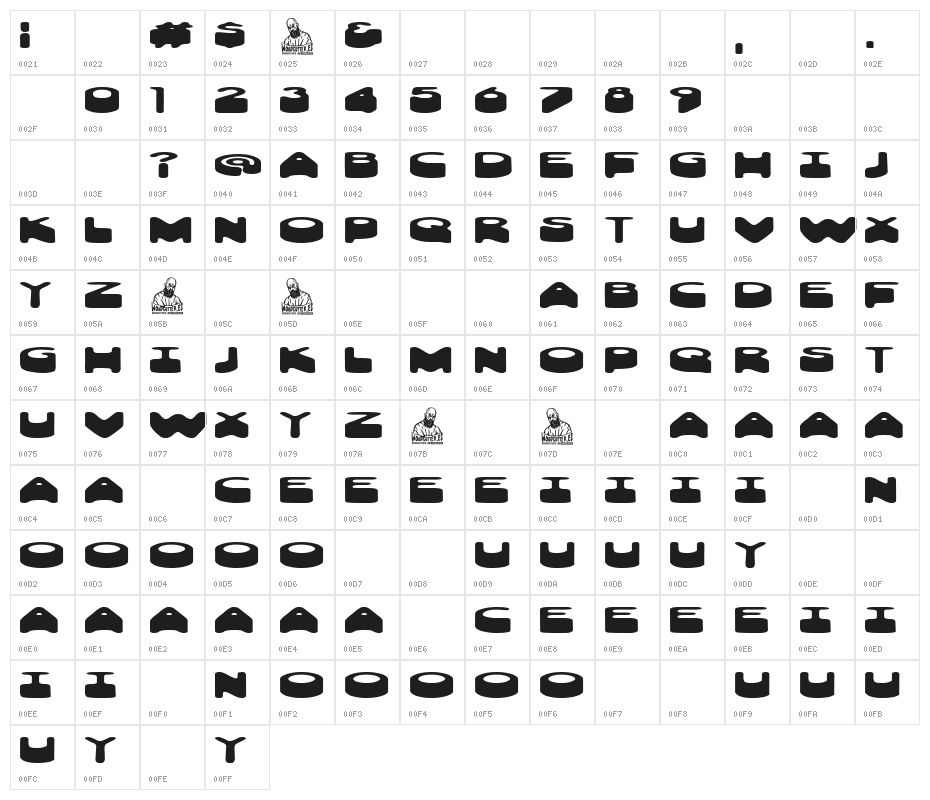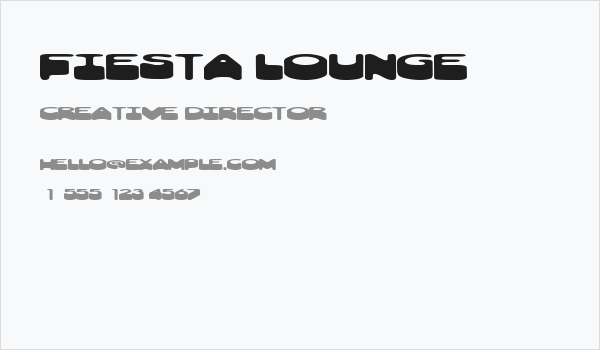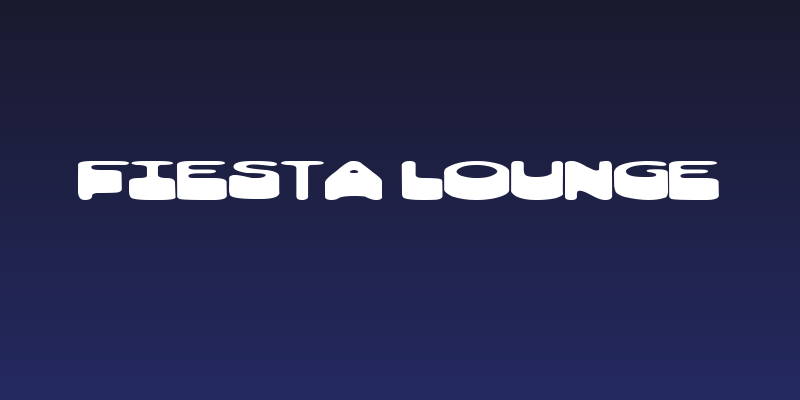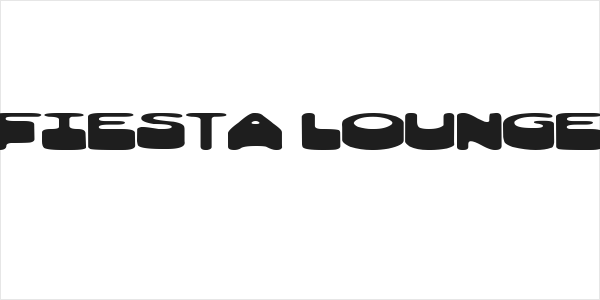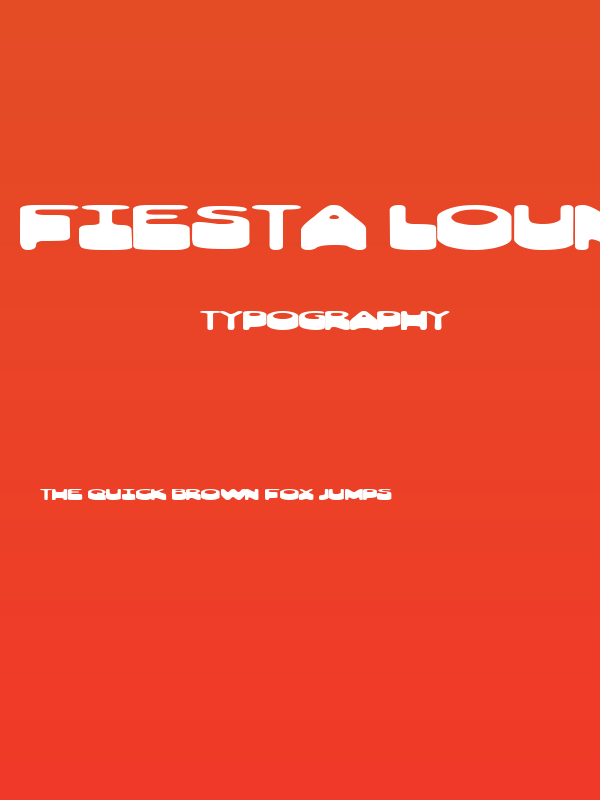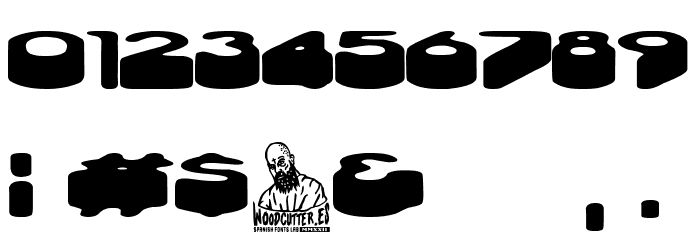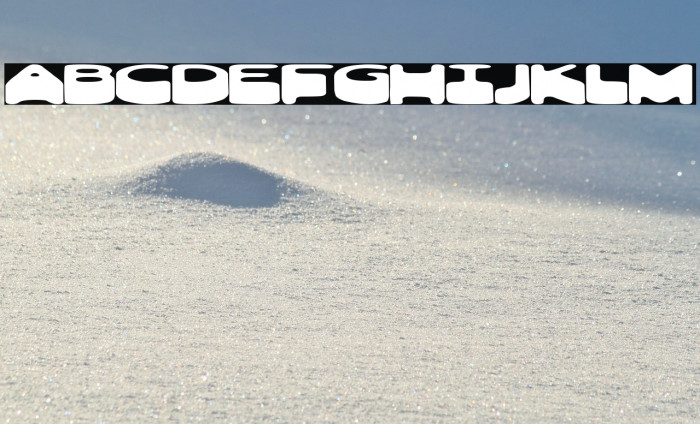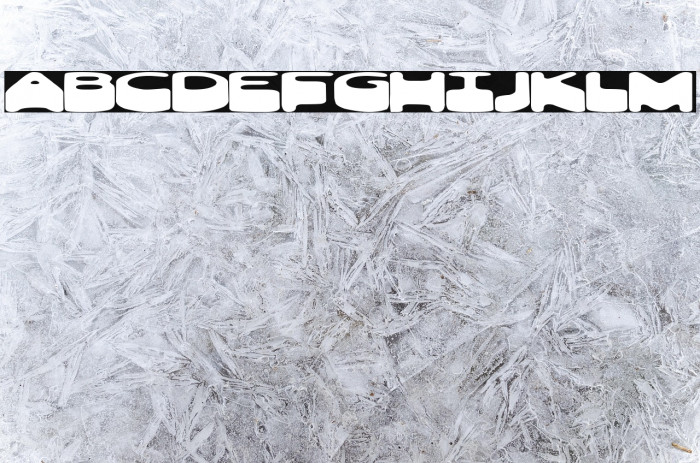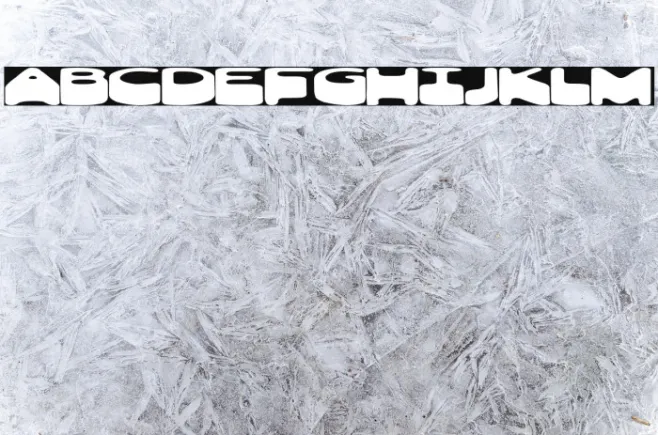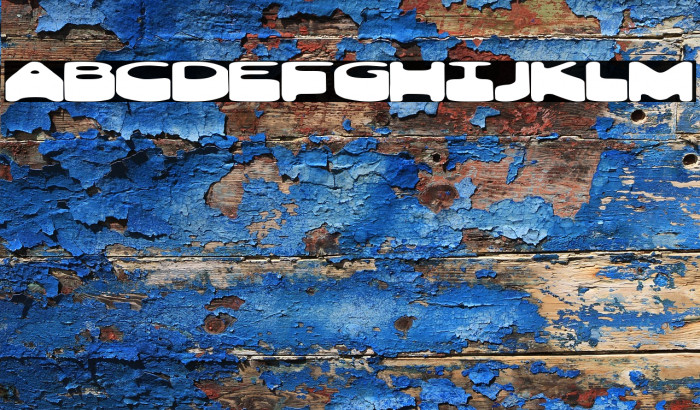
Fiesta Lounge Font
| Gesamtstil | Playful, Fun, Dynamic |
| Vorgeschlagene Projekte | Ideal for party invitations, children's book covers, playful branding, and event posters. |